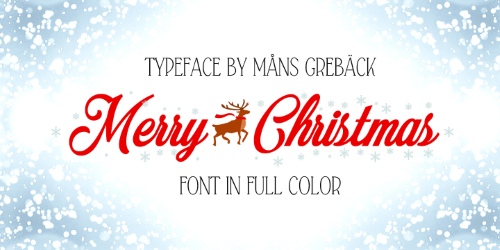
A decorative Christmas and New Year's Eve typeface.
- Merry Christmas is a decorative Christmas and New Year’s Eve typeface. It includes a full-color typeface for Adobe Photoshop and Adobe Illustrator. The font is built with advanced OpenType functionality and has a guaranteed top-notch quality, containing stylistic and contextual alternates, ligatures, and more features; all to give you full control and customizability. It has extensive lingual support, covering all Latin-based languages, from Northern Europe to South Africa, from America to South-East Asia. It contains all characters and symbols you'll ever need, including all punctuation and numbers.